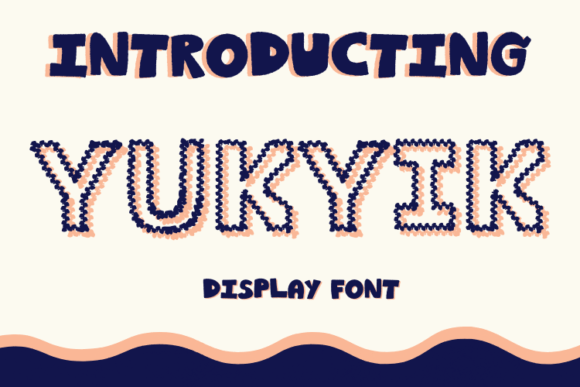
Yukyik Font
Journey into the world of Yukyik, a font crafted with the allure of simplicity and the elegance of nature. This display font beckons you to explore its captivating charm, promising a seamless integration into your creative endeavors.
Yukyik is a font that whispers of serenity and balance, its characters meticulously designed to evoke a sense of harmony. Its graceful curves and sharp edges dance together, creating a visual symphony that captivates the eye.
Unleash your creativity with Yukyik, a font that knows no bounds. Let its versatility guide you as you design t-shirts that speak volumes, posters that command attention, and logos that leave a lasting impression.
Immerse yourself in the boundless possibilities of Yukyik, a font that invites you to transcend the ordinary. Embrace its enchanting aura and watch as your designs take flight, captivating audiences with their timeless beauty.